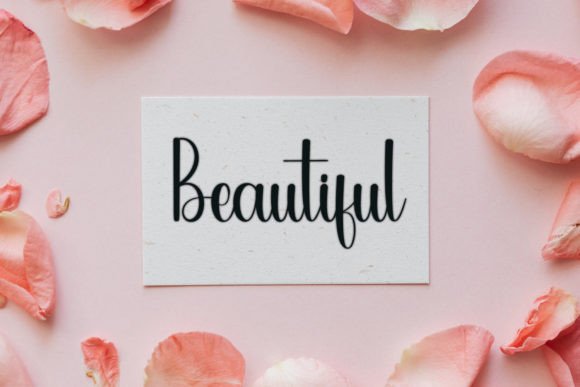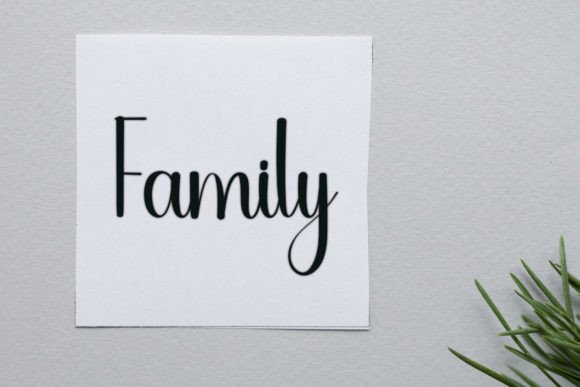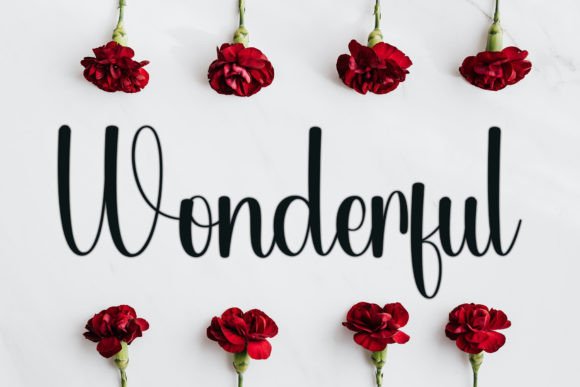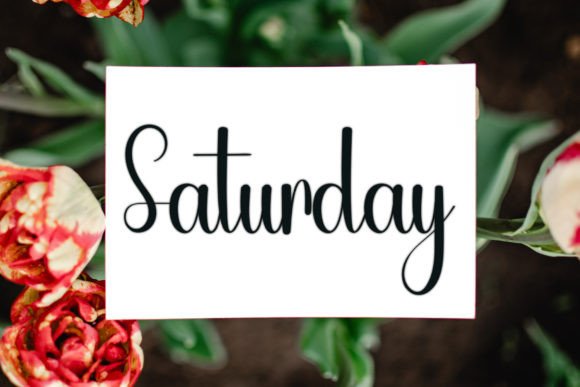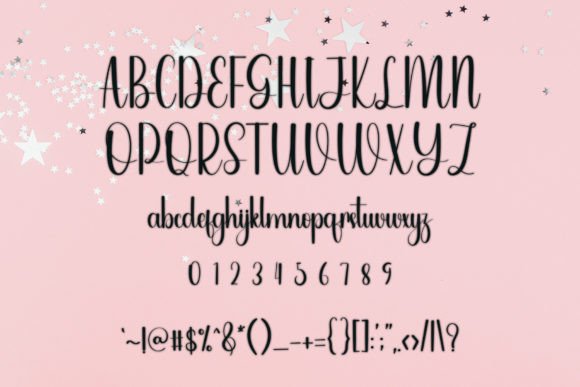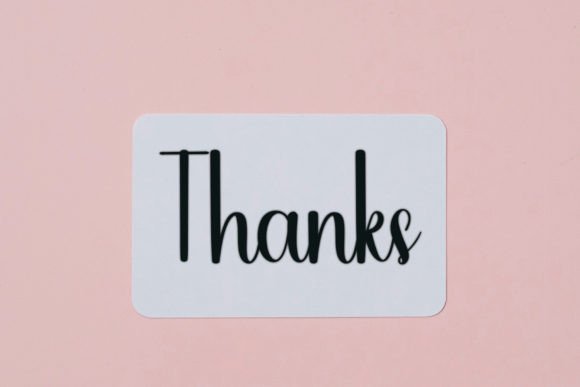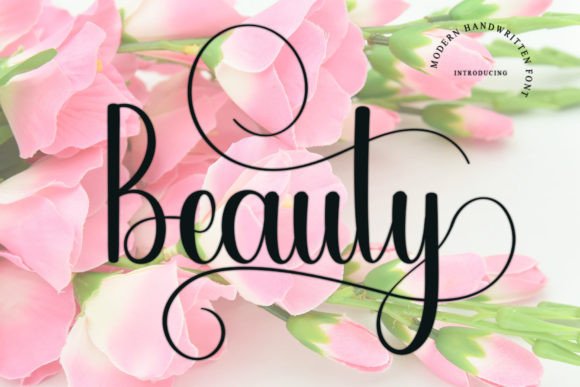
Introducing Beauty Font: Elevate Your Designs with Timeless Elegance
Are you a designer or crafter looking for a font that exudes sophistication and style? Look no further than Beauty Font, a stunning handwritten font that brings a touch of classic elegance to your projects. Inspired by timeless calligraphy, Beauty Font is a contemporary and impeccably crafted typeface that is sure to elevate your designs.
What Makes Beauty Font So Special?
Beauty Font is a beautifully balanced and varied font that has been designed to enhance the beauty of your projects. With its PUA encoding, you can easily access a wide range of amazing glyphs and ligatures, giving you the creative freedom to produce stunning text-based designs. Whether you’re working on a logo, branding materials, or digital products, Beauty Font is the perfect choice.
Key Features of Beauty Font
- PUA Encoded: Easily access a wide range of glyphs and ligatures to add a personal touch to your designs.
- Handwritten Style: Beauty Font boasts a stylish handwritten aesthetic that adds a touch of warmth and personality to your text.
- Contemporary Atmosphere: With its modern take on classic calligraphy, Beauty Font brings a fresh and contemporary feel to your designs.
- Balanced and Varied: The font’s carefully crafted design ensures that your text looks beautiful and harmonious, with a perfect balance of character and style.
Tips and Tricks for Getting the Most Out of Beauty Font
- Experiment with Different Sizes: Beauty Font looks great in a variety of sizes, from small captions to large headings.
- Play with Ligatures: Use the font’s ligatures to add a touch of elegance to your text.
- Mix and Match: Combine Beauty Font with other fonts to create a unique and eye-catching design.
Beauty Font is a stunning handwritten font that brings a touch of timeless elegance to your designs. With its PUA encoding, contemporary atmosphere, and impeccable form, Beauty Font is the perfect choice for designers and crafters looking to elevate their projects. Whether you’re working on a logo, digital product, or handmade craft, Beauty Font is sure to impress.